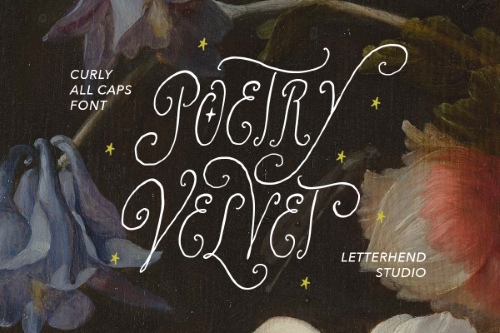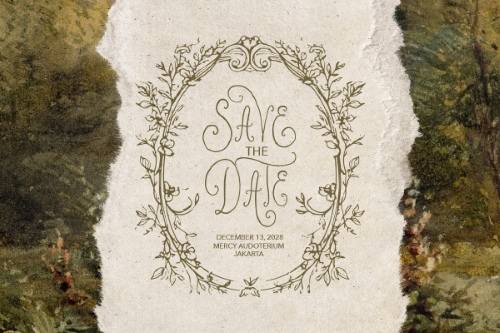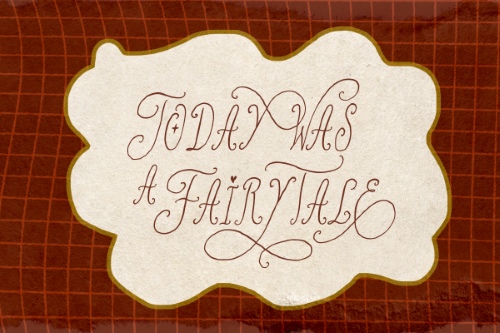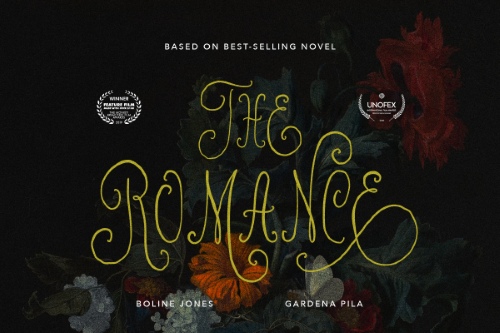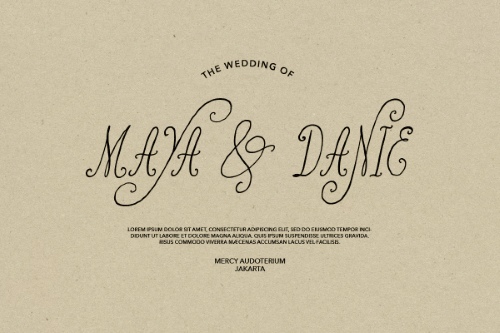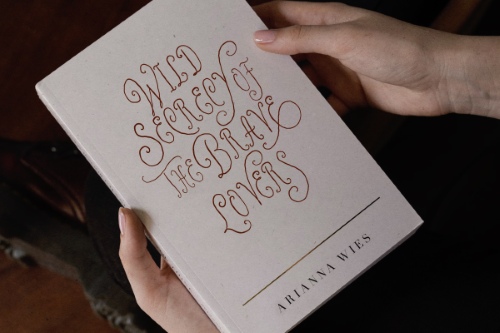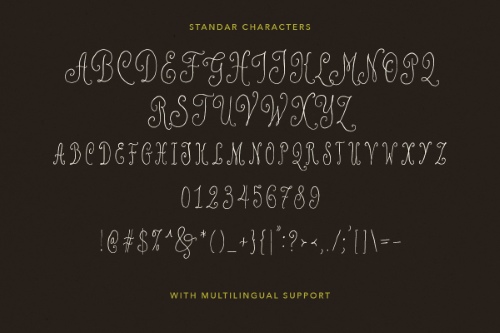
Poetry Velvet - Curly Display Fonts
- Every letter in Poetry Velvet flows with graceful curves and enchanting flourishes, creating an atmosphere that feels both timeless and dreamlike. Its slender all-caps forms are adorned with expressive swashes and playful curls, giving each word the charm of handcrafted lettering while maintaining a refined, decorative presence.